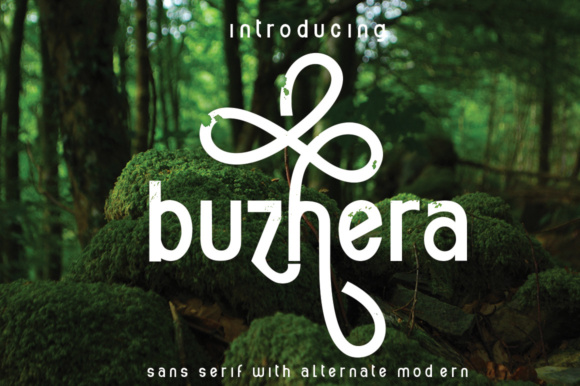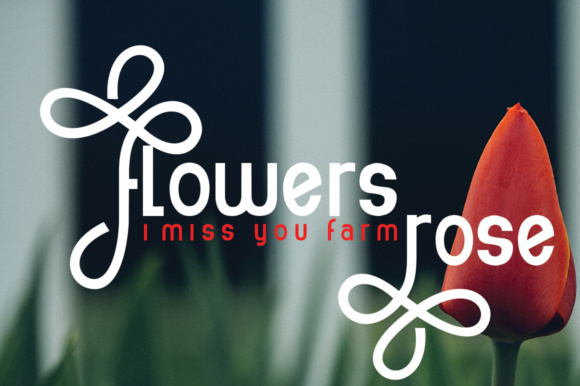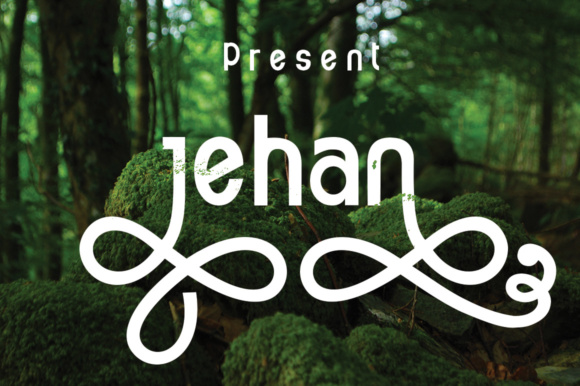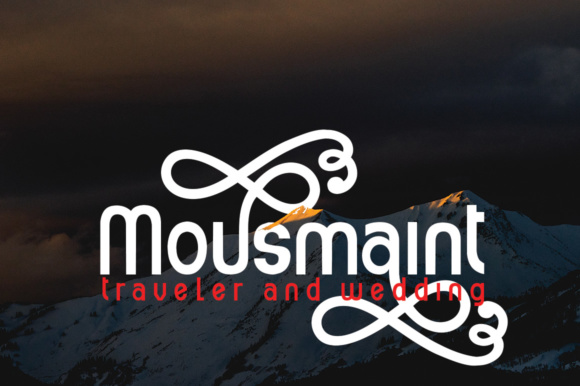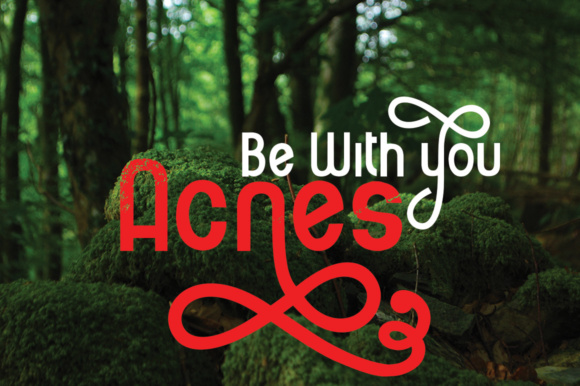
The Perfect Canvas for Your Next Creative Project
Have you ever been in the midst of a creative project, staring at a blank page, and struggling to find the right font to bring your vision to life? It’s a familiar feeling, and one that many designers can relate to. The right font can make all the difference, elevating your design from ordinary to extraordinary.
Enter the Buzhera Font, a simple and elegant sans serif that is perfect for a wide range of projects. Designed to be versatile and easy to read, Buzhera Font is a valuable tool for designers looking to create clean and modern designs. Whether you’re working on a logo, brochure, or website, the Buzhera Font is sure to provide the perfect canvas for your next creative project.
Buzhera Font Key Features
- Font Family: Buzhera is a unique, modern sans-serif font designed for various digital and print applications.
- Character Set: Includes a wide range of characters, including Latin, Cyrillic, and Greek alphabets, making it suitable for multilingual designs.
- Unique Characteristics: Buzhera features a clean, minimalist design with a subtle rounded edge, making it perfect for modern branding and design projects.
Buzhera Font Review
I recently had the chance to work with the Buzhera Font, and I must say it’s been an interesting experience. Here’s what I think:
- The Buzhera Font has a unique, futuristic feel to it, which can be great for projects that require a cutting-edge look.
- The font is highly customizable, allowing you to adjust everything from the font weight to the letter spacing.
- The font is also relatively lightweight, making it easy to use in web projects where file size is a concern.
- The Buzhera Font may not be the best choice for projects that require a traditional or classic look. Its futuristic feel may be jarring in certain contexts.
- The font can be a bit difficult to read at smaller font sizes, which may be a concern for projects that require a lot of text.
- The font’s customizability can also be a double-edged sword – while it’s great to have so many options, it can be overwhelming to try to find the perfect combination.
The Buzhera Font is a solid choice for projects that require a modern, cutting-edge look. While it may have some limitations, its unique feel and high level of customizability make it a great option for designers who are looking to push the boundaries of their work.
Tips for Getting the Most Out of Buzhera Font
For optimal results, use Buzhera Font in conjunction with bold and italic styles to create visually appealing text effects.
Experiment with different font sizes and colors to create a unique and eye-catching design.
Buzhera Font is ideal for use in:
- Fashion and lifestyle design.
Alternatives to Buzhera Font for Designers
Buzhera Font is a unique and creative typeface, but sometimes designers may need alternatives to suit their specific project needs. Here are a few options:
Great Vibes is a modern and elegant script font, ideal for creative projects, branding, and advertising. It features a fluid and dynamic design that captures the user’s attention. Great Vibes is a great alternative to Buzhera Font when you need a more polished and sophisticated look.
Comparison: While Buzhera Font has a playful and whimsical feel, Great Vibes is more refined and elegant. Great Vibes is better suited for projects that require a touch of sophistication and professionalism.
2. Dancing Script
Dancing Script is a beautiful and elegant script font, perfect for creative and artistic projects. It features a flowing and dynamic design that adds a touch of elegance to any project. Dancing Script is a great alternative to Buzhera Font when you need a more refined and sophisticated look.
What is the recommended font size for Buzhera?
The recommended font size for Buzhera is between 24pt and 48pt, depending on the design context and the intended message. Using a font size within this range will help to maximize the font’s legibility and visual impact.